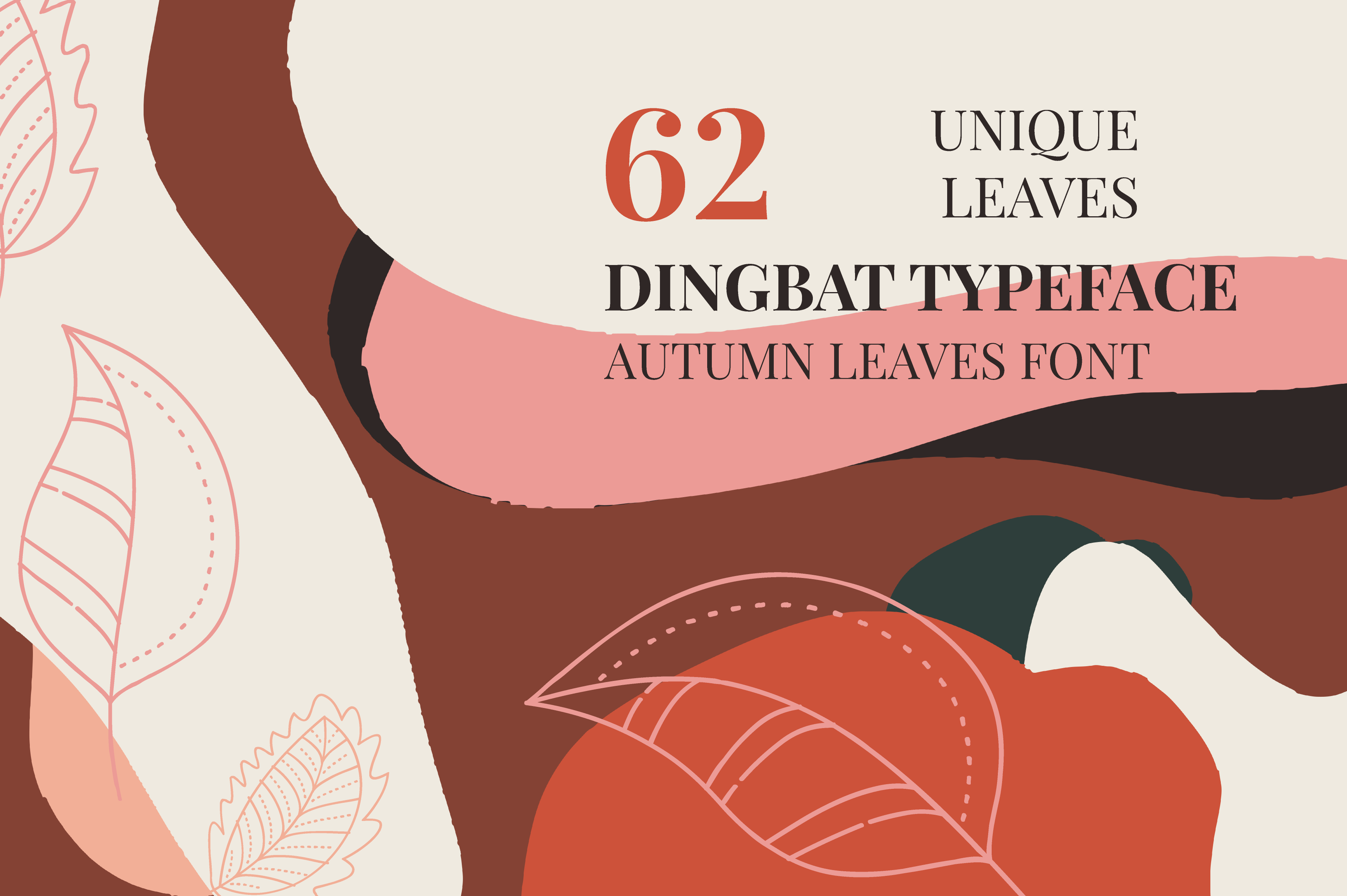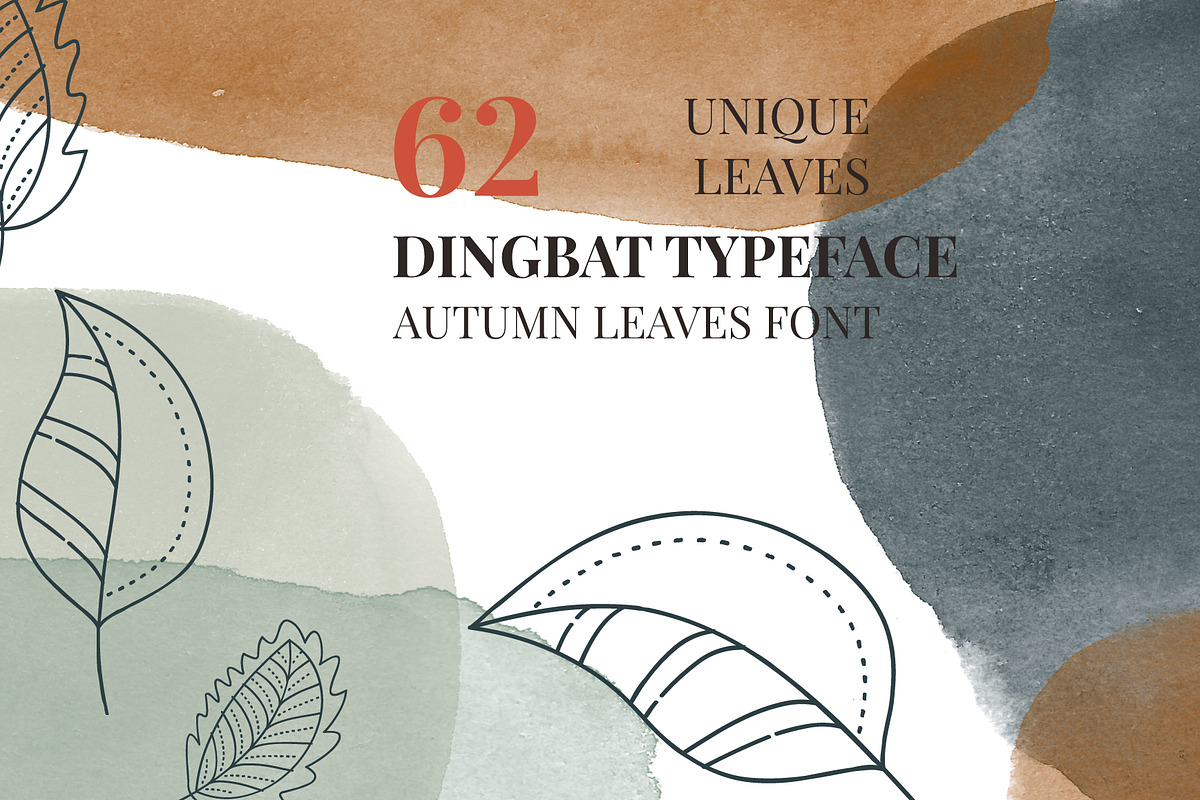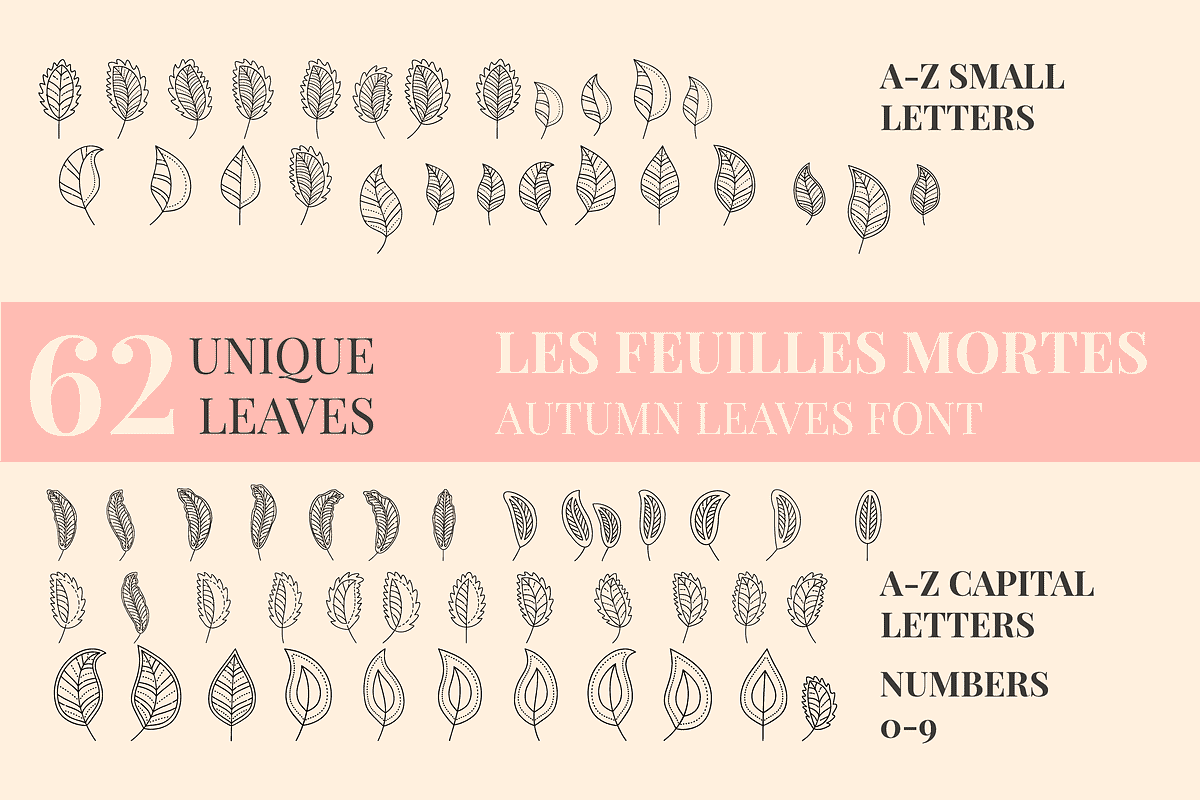
Autumn Leaves Dingbats Font
Autumn leaves is a beautiful and unique dingbats font. You can generate an unlimited amount of patterns, backgrounds, mockups, or anything else! Let your creativity flow, and use this font to add a splendid aesthetic to your designs!